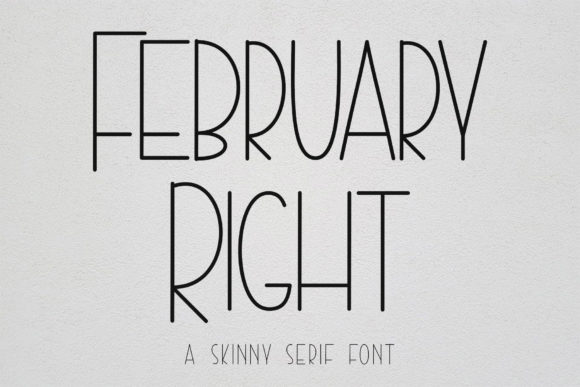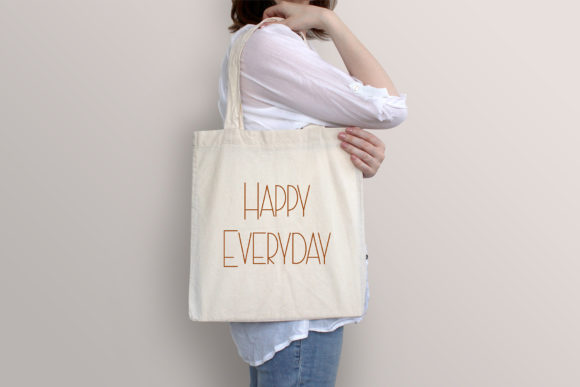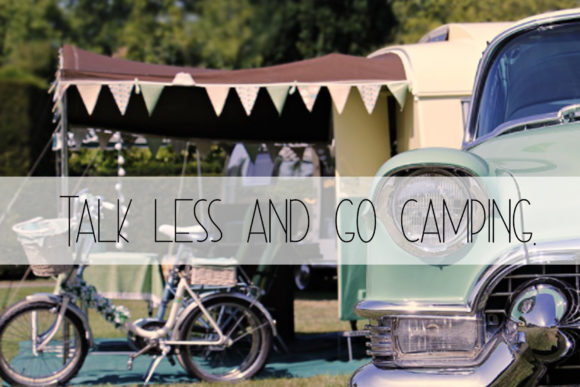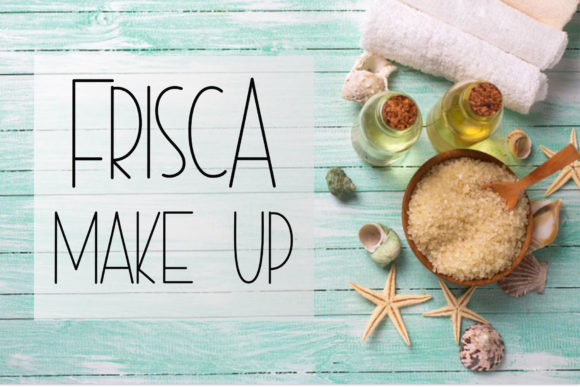
February Right Font: Modern Minimalist Sans Serif for Cricut Crafts
About the February Right Font
Step up your design game with February Right Font, a font that exudes confidence and style. February Right is a skinny and tall lettered sans serif font that can be used for many kinds of design-project! Its authentic look will add a personal and realistic feel to all of your designs.
February Right’s tall, slender forms are ideal for headlines, short impactful phrases in logos, and even striking elements within packaging designs. Its unique character shines in projects requiring a modern, yet slightly quirky personality. Avoid using it for body text or long paragraphs; the thin strokes will strain readability at smaller sizes. UI applications are also not recommended due to potential legibility issues.
This font’s energetic yet refined personality pairs well with fonts that provide a counterpoint. A geometric sans-serif like Bebas Neue can offer a bold contrast, while a classic serif such as Garamond or a more contemporary serif like Playfair Display can create a sophisticated balance. For a playful combination, consider pairing it with a rounded sans-serif like Montserrat.
Ultimately, February Right is best suited for brands and projects that value a modern, distinctive aesthetic with a touch of individuality. Its strong verticality and unique character make it a memorable choice for projects needing visual impact without being overly formal.